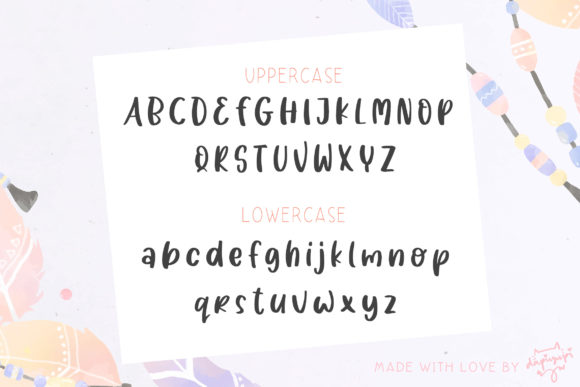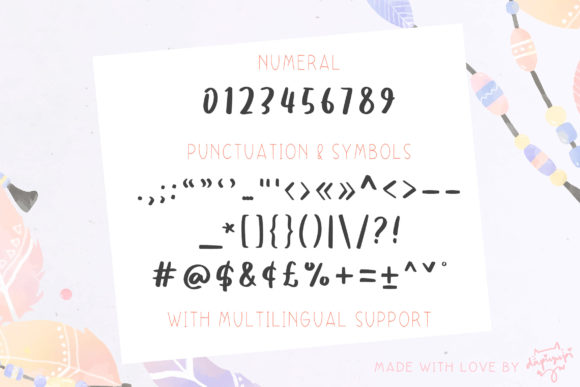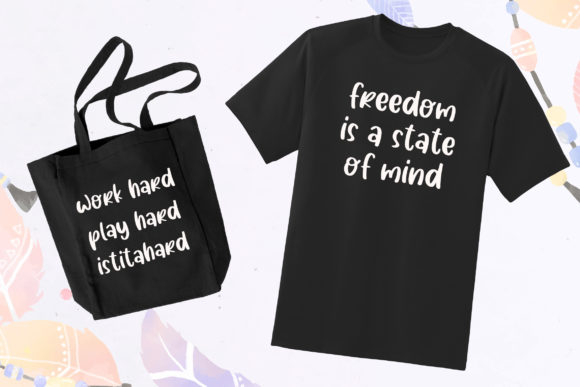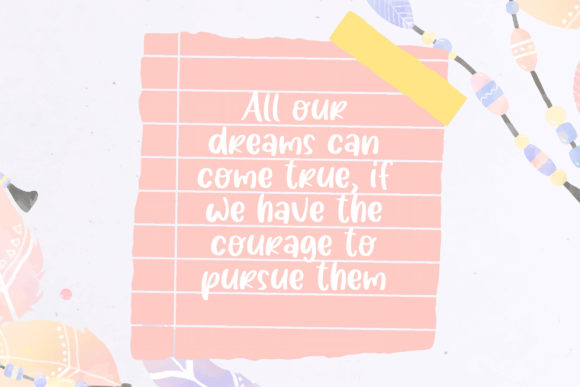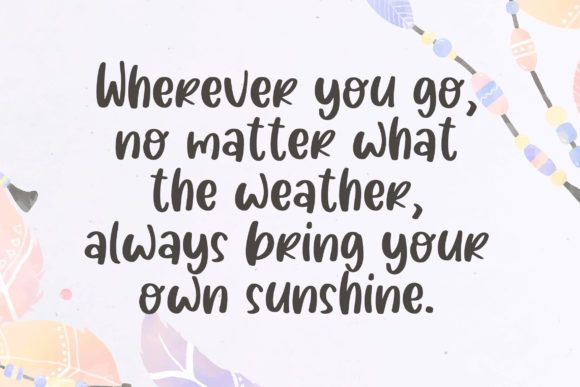
Introducing Bohemila Font: The Ultimate Cute and Quirky Handwritten Font
Are you a designer or crafter looking for a unique and playful font to elevate your creations? Look no further than Bohemila Font! This adorable handwritten font is perfect for adding a touch of whimsy and personality to your designs, from product packaging to business cards and beyond.
What Makes Bohemila Font So Special?
Bohemila Font is a one-of-a-kind typeface that exudes a sense of sweetness and playfulness. Its cute and quirky design makes it perfect for a wide range of creative projects, including:
- Product packaging: Add a touch of personality to your product labels and packaging with Bohemila Font.
- Business cards: Stand out from the crowd with a unique and eye-catching business card design featuring Bohemila Font.
- Branding: Use Bohemila Font to create a cohesive and recognizable brand identity.
- Stationery: Add a playful touch to your stationery, including invitations, greeting cards, and more.
Key Features of Bohemila Font
So, what makes Bohemila Font so special? Here are just a few of its key features:
- Cute and quirky design: Bohemila Font features a unique and playful design that’s sure to capture attention.
- Handwritten style: This font features a beautiful, handwritten style that’s perfect for adding a personal touch to your designs.
- Versatile: Bohemila Font can be used for a wide range of creative projects, from product packaging to business cards and more.
- Easy to read: Despite its playful design, Bohemila Font is easy to read and understand, making it perfect for use in a variety of contexts.
How to Use Bohemila Font in Your Designs
Using Bohemila Font in your designs is easy! Here are a few tips to get you started:
- Pair it with other fonts: Bohemila Font pairs perfectly with a variety of other fonts, including sans-serif and serif fonts.
- Experiment with colors: Bohemila Font looks great in a variety of colors, from bright and bold to soft and pastel.
- Add graphics and illustrations: Bohemila Font is perfect for use in combination with graphics and illustrations, adding an extra layer of visual interest to your designs.
Why Designers and Crafters Love Bohemila Font
So, why do designers and crafters love Bohemila Font? Here are just a few reasons:
- Unique and eye-catching: Bohemila Font is a one-of-a-kind typeface that’s sure to capture attention.
- Versatile: Bohemila Font can be used for a wide range of creative projects, making it a great addition to any designer’s or crafter’s toolkit.
In conclusion, Bohemila Font is a cute and quirky handwritten font that’s perfect for designers and crafters looking to add a touch of personality to their creations. With its unique design, versatility, and ease of use, Bohemila Font is a great choice for anyone looking to elevate their designs and stand out from the crowd.